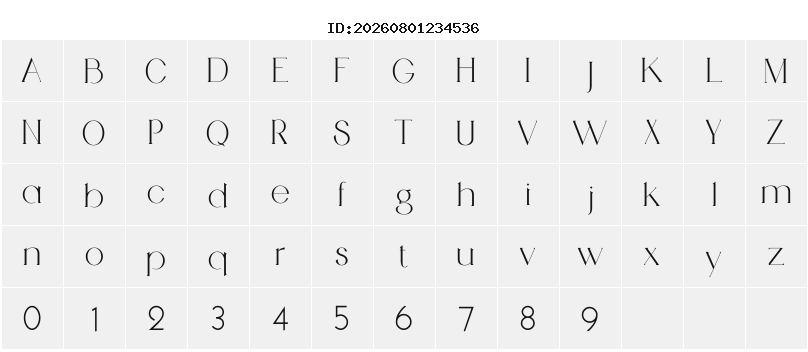
• Font Name: Medhurst
• Full Font Name: Medhurst
About Medhurst.ttf
Medhurst.ttf is a modern, elegant sans-serif font designed for ultimate readability and visual harmony. Perfect for branding, headlines, web design, and print materials.